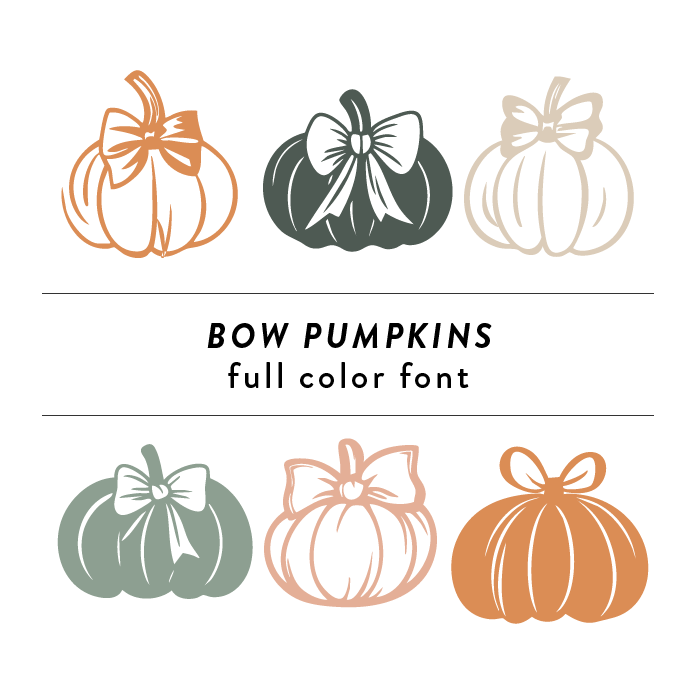
This unique Bow Pumpkins Full Color Font design features whimsical pumpkins with bows, perfect for autumn and Halloween projects. The colorful and intricate design adds a festive touch to any craft project or seasonal design.